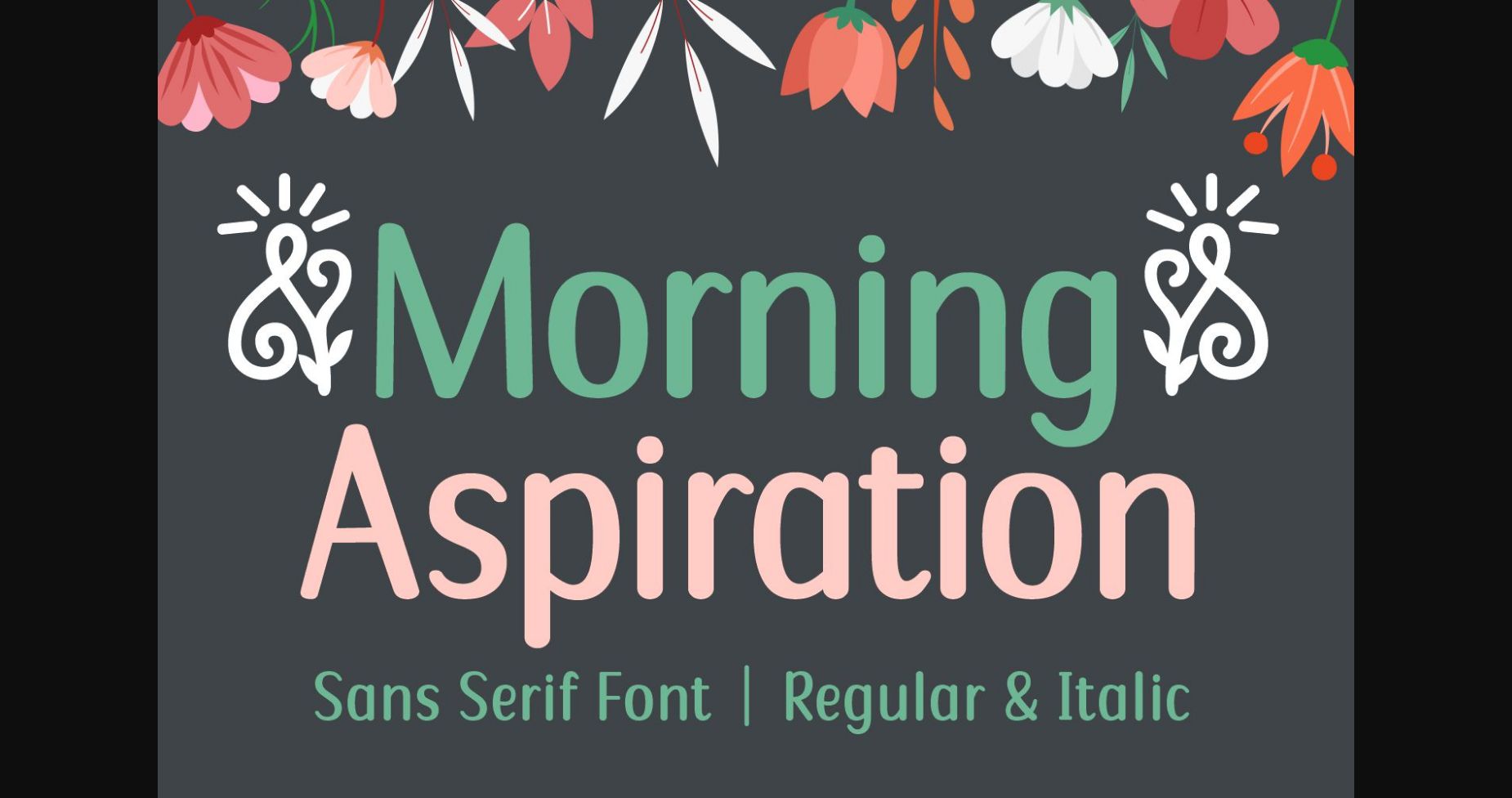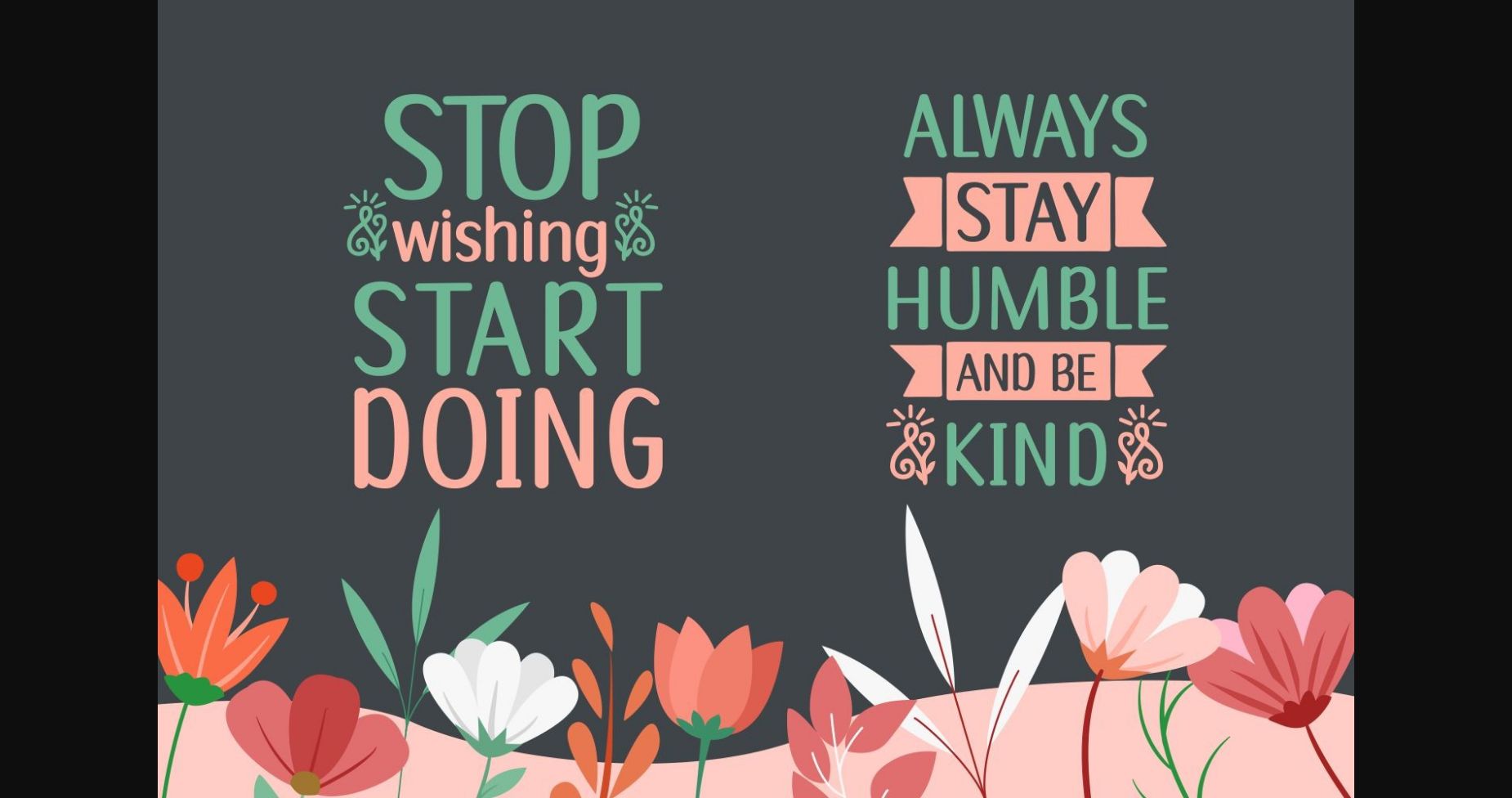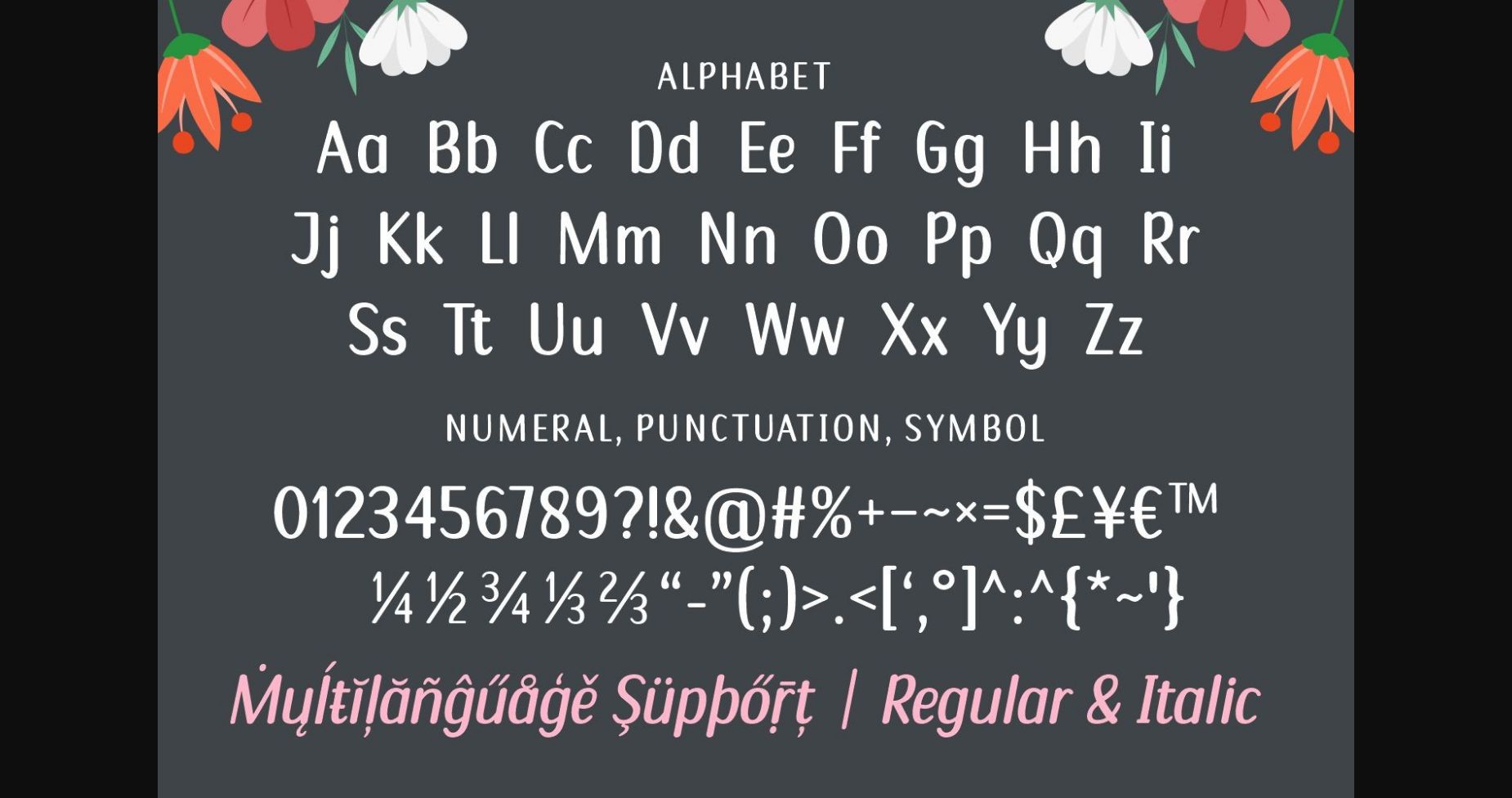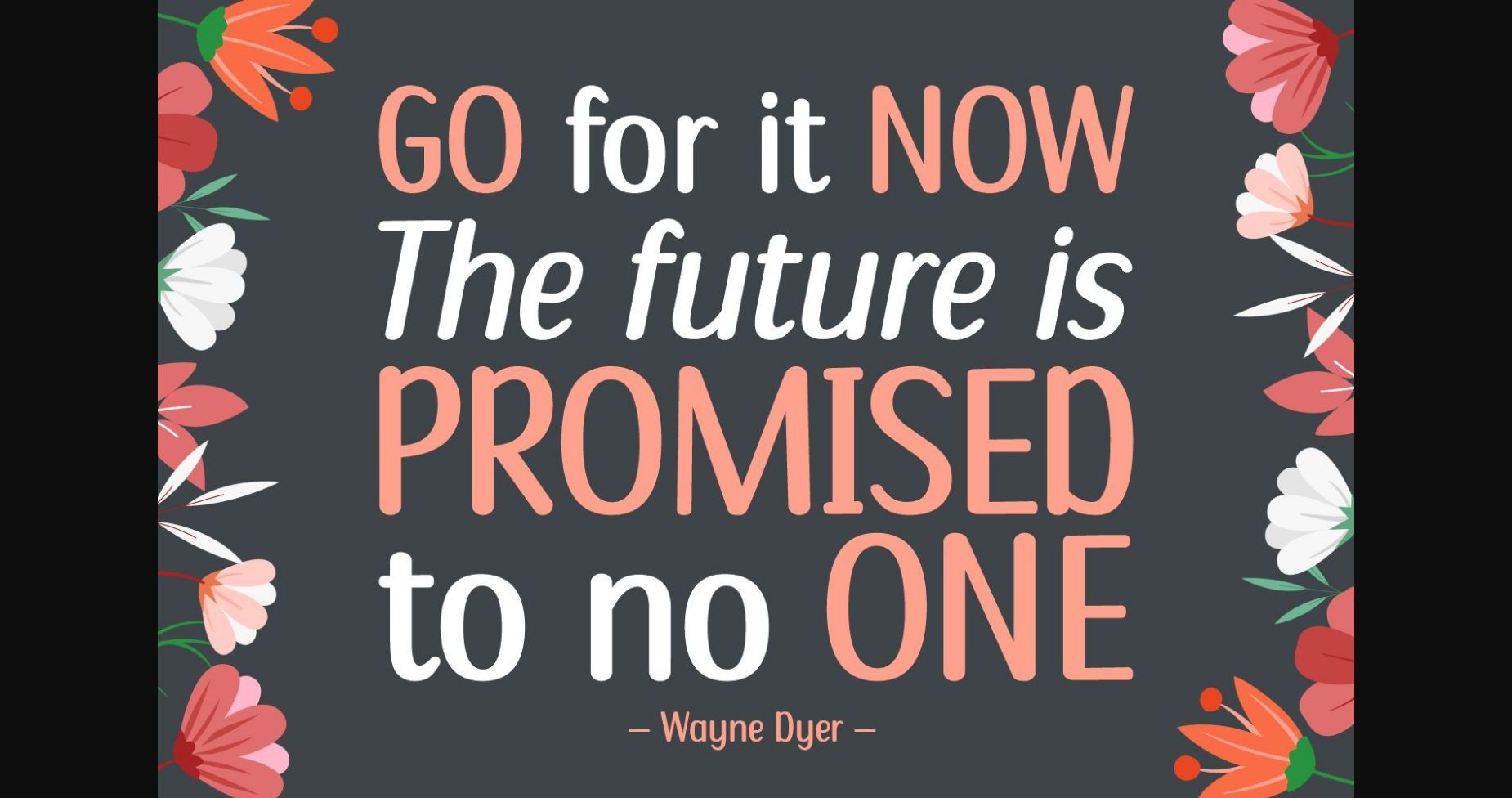
Morning Aspiration Font
About Morning Aspiration Font
The Morning Aspiration comes in a regular and italic style, giving you the creative possibility to mix and match the styles into a unique design. The font is crafting friendly, and can be used with your cutting machines – such as Cricut and Silhouette.